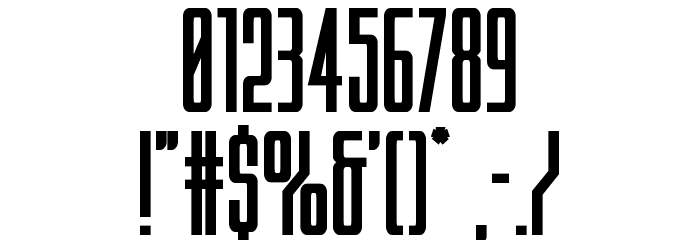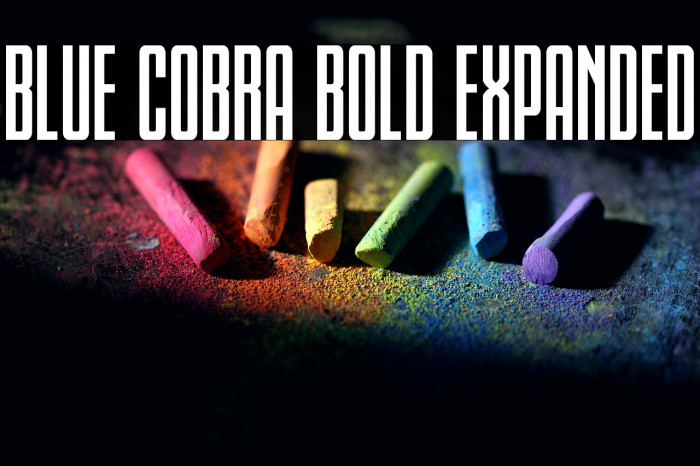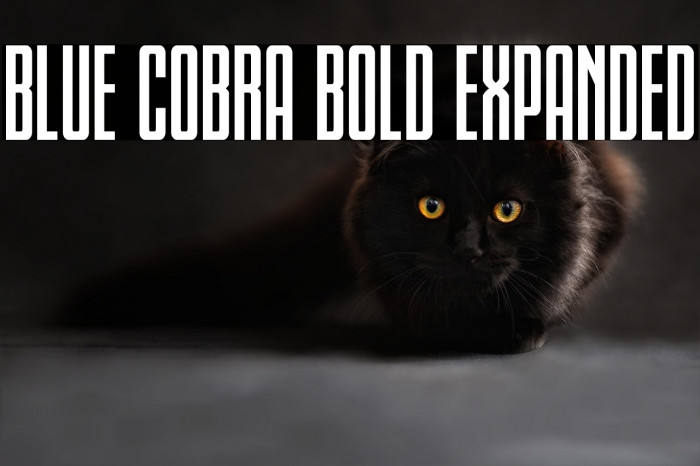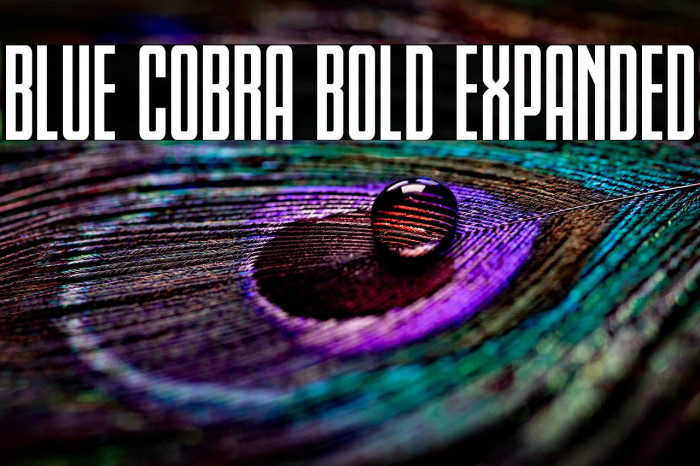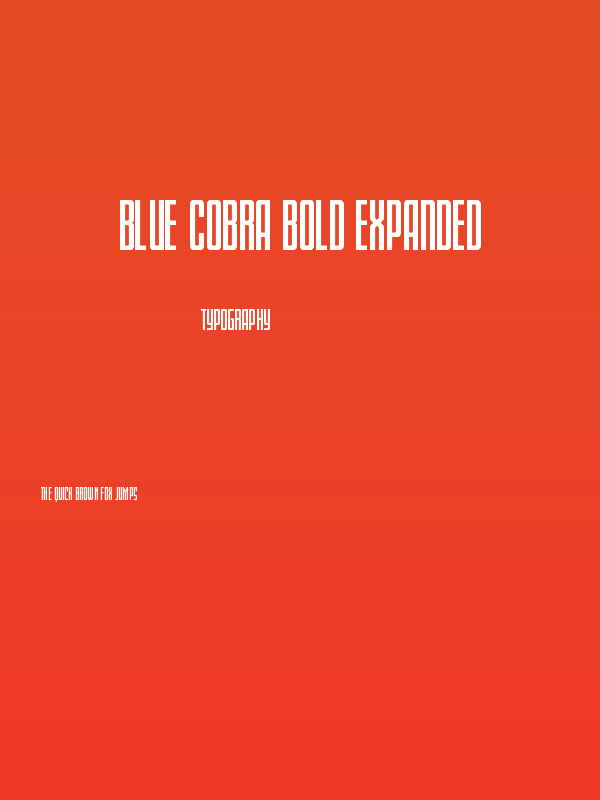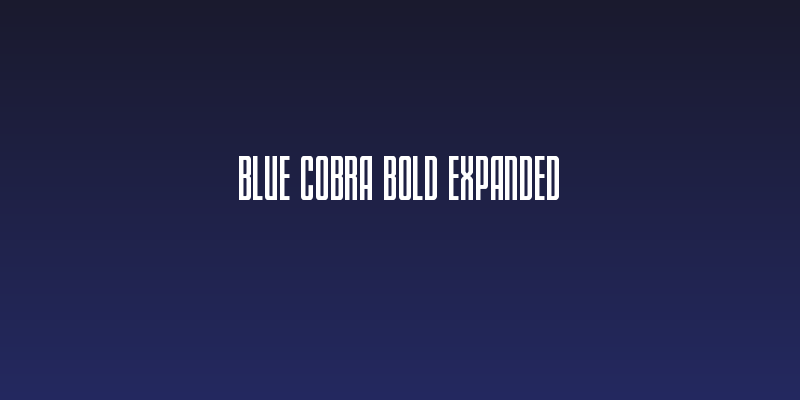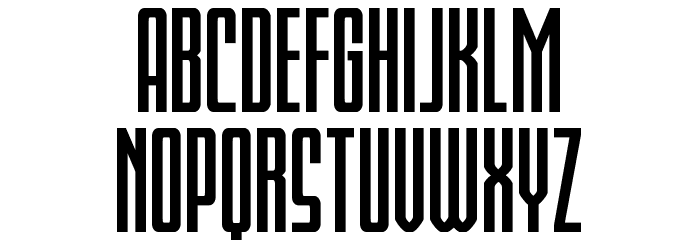
Blue Cobra Bold Expanded Font
Blue Cobra Bold Expanded Description
This font features a bold and expanded style with a strong geometric structure. The characters are tall and narrow, with consistent stroke widths that give it a uniform appearance. The uppercase letters are particularly striking, with sharp angles and a modern aesthetic. The numbers and special characters maintain the same boldness, ensuring a cohesive look across all text. This font is designed to make a statement, with its expanded width adding a sense of grandeur and presence.